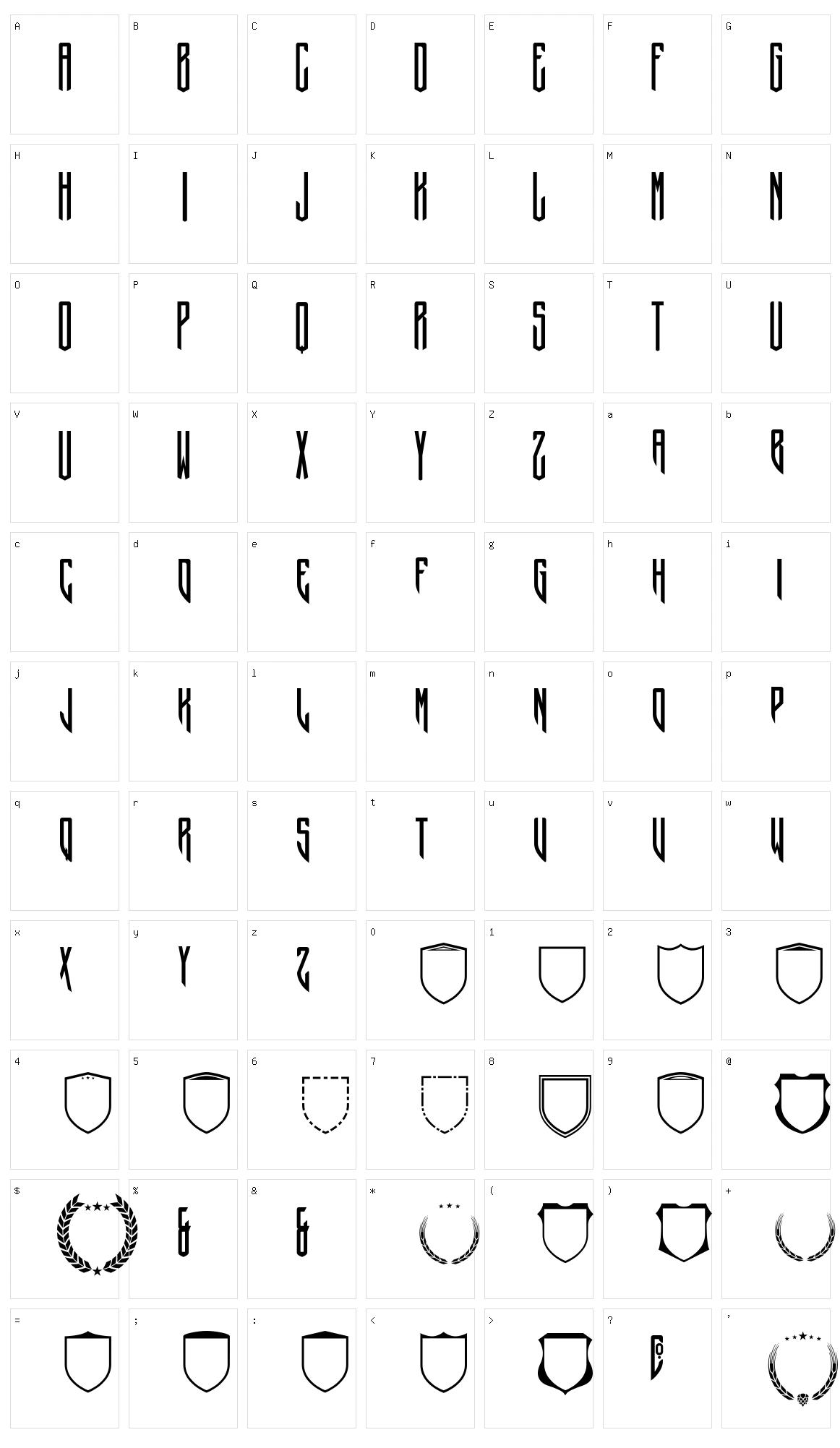
Crepitus
Crepitus |ˈkrɛpɪtəs|
Noun [ mass noun ] Medicine
a grating sound or sensation produced by friction between bone and cartilage or the fractured parts of a bone.
Created as a ‘distraction project’ whilst convalescing with broken ribs, Crepitus is named in honour of the background sounds my chest was making whilst I drew it.
Crepitus Monogram is a three letter Monogram font with added border goodness. It allows you to create 3 letter shield monograms.
The 3rd character requires discretionary ligatures to be enabled in the app used for setting the monogram, so check app documentation for how to ‘enable discretionary ligatures’.